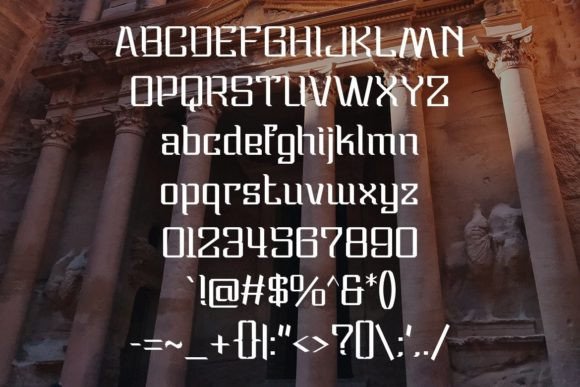
Discover the Elegance of Al Andalus Font: A Middle Eastern Calligraphic Inspiration
In the realm of typography, few fonts capture the essence of Middle Eastern culture as elegantly as the Al Andalus Font. This typeface is a beautiful blend of traditional calligraphic styles from the region, reimagined for modern design applications. Whether you’re crafting a logo, branding materials, book titles, or posters, Al Andalus Font offers a unique and captivating aesthetic that instantly conveys the vibe of the Middle East.
The Inspiration Behind Al Andalus Font
Al Andalus Font draws its inspiration from the rich calligraphic heritage of the Middle East. Calligraphy has long been a revered art form in this region, with intricate and flowing scripts that adorn everything from ancient manuscripts to modern architectural marvels. The font’s design meticulously captures the fluidity, elegance, and intricate details characteristic of these classic calligraphic styles.
Key Features of Al Andalus Font
- Elegant and Fluid Design: The font boasts a smooth, flowing design that mirrors the beauty of traditional Middle Eastern calligraphy.
- Versatile Usage: Perfect for a wide range of design projects including logos, branding materials, book titles, and posters.
- Cultural Authenticity: It brings an authentic Middle Eastern aesthetic to your designs, making it ideal for projects that require a cultural or regional touch.
- High Readability: Despite its decorative nature, Al Andalus Font maintains high readability, making it suitable for both titles and body text.
Applications of Al Andalus Font
The versatility of Al Andalus Font makes it an excellent choice for various design applications:
Logo and Branding
For logos and branding materials, Al Andalus Font offers a unique opportunity to stand out with a design that speaks to elegance and tradition. Its distinctive characters can help create a memorable brand identity that resonates with target audiences, especially for businesses looking to emphasize a connection to the Middle East.
Book Titles and Publishing
In the publishing industry, the font can add a touch of sophistication and cultural depth to book covers and titles. It’s particularly suited for works that explore Middle Eastern history, culture, literature, or cuisine, enhancing the book’s thematic presentation.
Poster Design
For poster design, Al Andalus Font can be used to create visually striking titles and headings that capture the viewer’s attention. Whether it’s for an event, exhibition, or promotional campaign with a Middle Eastern theme, this font can significantly elevate the design’s impact.
Tips for Using Al Andalus Font Effectively
To maximize the impact of Al Andalus Font in your designs, consider the following tips:
- Mix with Modern Fonts: Pair Al Andalus Font with cleaner, modern fonts for body text or secondary headings to create a balanced and engaging visual hierarchy.
- Adjust Letter Spacing: For optimal readability, especially in longer texts, adjust the letter spacing to ensure the elegant flow of the script isn’t compromised.
- Experiment with Colors: Traditional Middle Eastern motifs often feature rich, vibrant colors. Experiment with color schemes that reflect this heritage to enhance the font’s cultural authenticity.
| Font Name | Al Andalus Font |
| Author | konstantinestudio |
Al Andalus Font is a remarkable typeface that brings the timeless beauty of Middle Eastern calligraphy to contemporary design. Its elegant design, versatility, and cultural authenticity make it an invaluable asset for designers looking to infuse their projects with a touch of the region’s rich heritage. Whether you’re working on a logo, branding materials, book titles, or posters, Al Andalus Font offers a unique aesthetic that can elevate your designs and engage your audience.
Embrace the elegance and tradition of the Middle East with Al Andalus Font, and discover new possibilities for your creative projects.